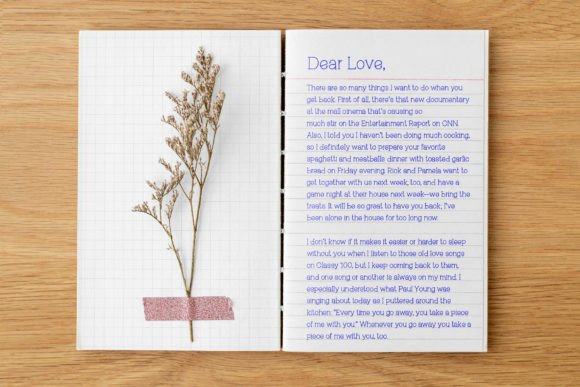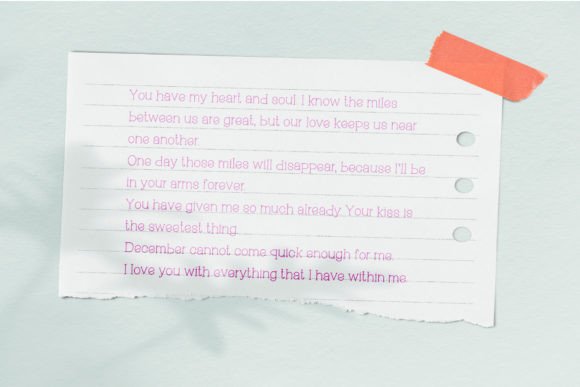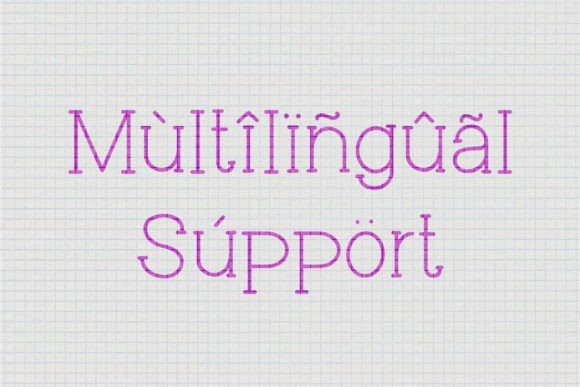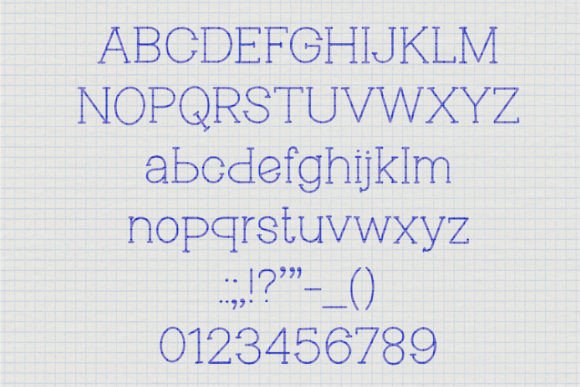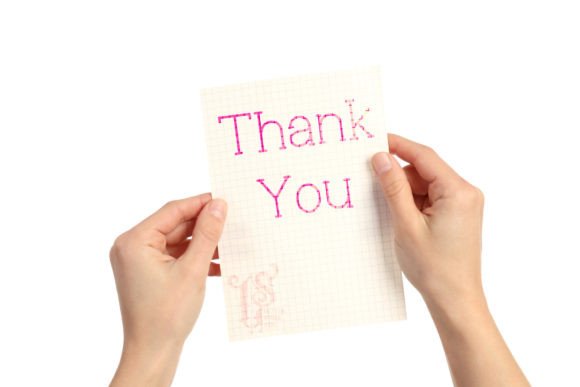
Introducing Grafield Font: The Friendly and Cute Monoline Display Font
Are you a designer or crafter looking for a font that can add a touch of personality to your designs? Look no further than Grafield Font, a friendly and cute monoline display font that’s perfect for a variety of creative projects. In this article, we’ll take a closer look at Grafield Font, its features, and how you can use it to elevate your designs.
What is Grafield Font?
Grafield Font is a modern, monoline display font that’s designed to bring a touch of friendliness and approachability to your designs. Its clean lines, simple shapes, and playful vibe make it perfect for designs that require a personalized style. Whether you’re creating wedding invitations, thank you cards, greeting cards, logos, or other creative projects, Grafield Font is an excellent choice.
Key Features of Grafield Font
So, what makes Grafield Font so special? Here are some of its key features:
- Monoline design: Grafield Font features a monoline design, which means that it’s made up of a single, continuous line. This gives it a clean and modern look that’s perfect for designs that require a touch of sophistication.
- Cute and friendly: Despite its modern design, Grafield Font has a cute and friendly vibe that’s perfect for designs that require a touch of personality.
- Highly versatile: Grafield Font is highly versatile, which means that it can be used for a wide range of creative projects, from wedding invitations to logos.
- Easy to read: Grafield Font is easy to read, even at small sizes, which makes it perfect for designs that require a lot of text.
How to Use Grafield Font
Now that we’ve covered the features of Grafield Font, let’s take a look at how you can use it in your designs. Here are some ideas to get you started:
- Wedding invitations: Grafield Font is perfect for wedding invitations, as it adds a touch of romance and personality to your design.
- Thank you cards: Use Grafield Font to create beautiful thank you cards that will make your recipients feel special.
- Greeting cards: Grafield Font is also great for greeting cards, as it adds a touch of friendliness and approachability to your design.
- Logos: If you’re creating a logo for your business, Grafield Font is an excellent choice, as it’s highly versatile and can be used for a wide range of industries.
Tips for Using Grafield Font
Here are some tips for using Grafield Font in your designs:
- Use it with contrasting colors: Grafield Font looks great when paired with contrasting colors, so don’t be afraid to experiment with different color combinations.
- Add some texture: Adding some texture to your design can help to give it a more tactile feel, which works well with Grafield Font.
- Experiment with different sizes: Grafield Font looks great at a variety of sizes, so don’t be afraid to experiment with different sizes to see what works best for your design.
In conclusion, Grafield Font is a friendly and cute monoline display font that’s perfect for designers and crafters who want to add a touch of personality to their designs. Its clean lines, simple shapes, and playful vibe make it highly versatile and easy to use. Whether you’re creating wedding invitations, thank you cards, greeting cards, logos, or other creative projects, Grafield Font is an excellent choice. So why not give it a try and see how it can elevate your designs?